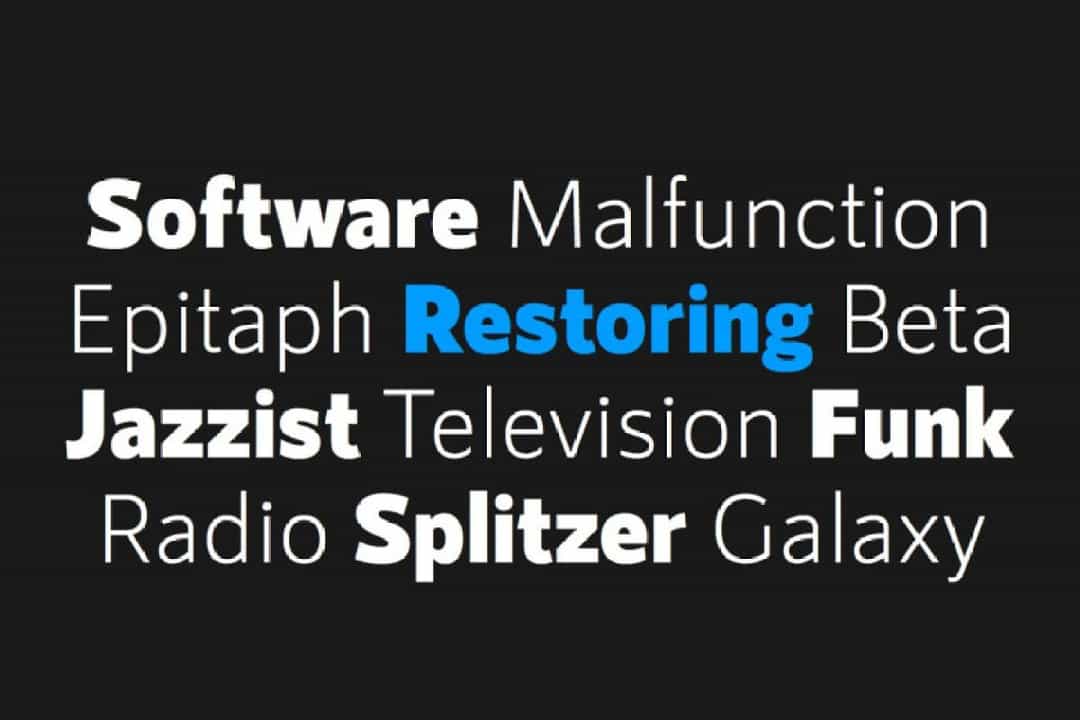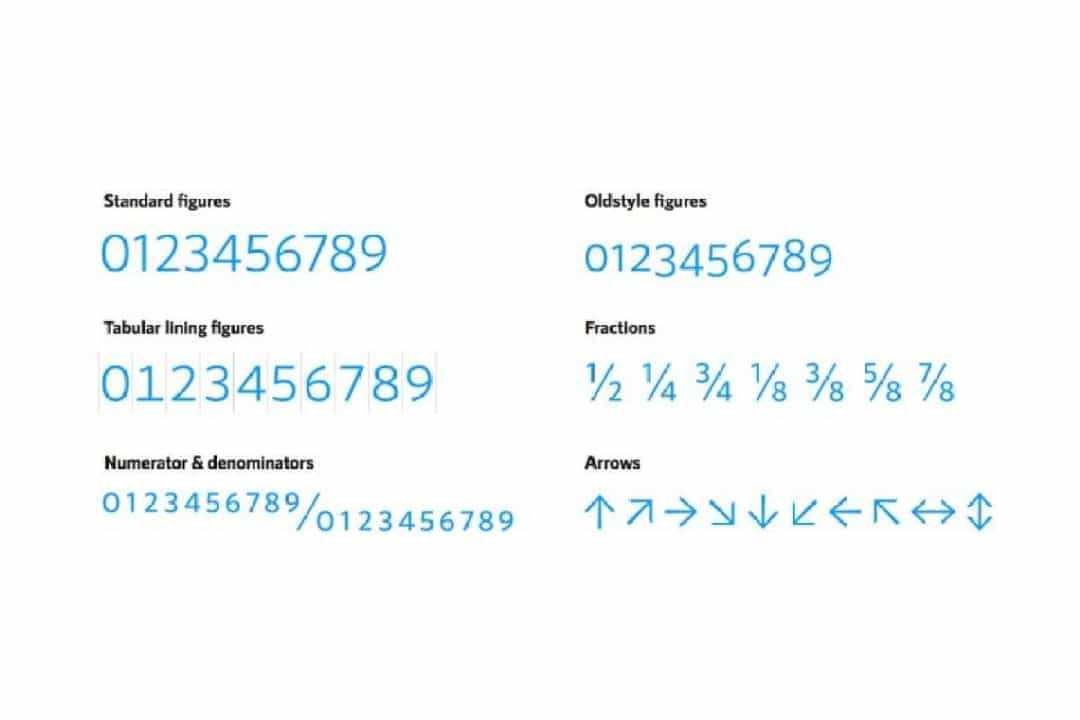
RNS Sanz Sans is a sans serif, neutral and very legible typeface with a lot of spacing and open apertures for counters, suitable for headlines and signage. The design of RNS Sanz Sans is neutral which gives it a medical look while at the same time letting the user choose from seven different style options; it has roman-style fonts that come in light and go up to black.